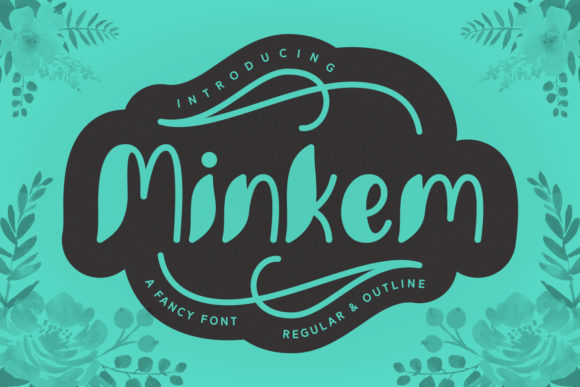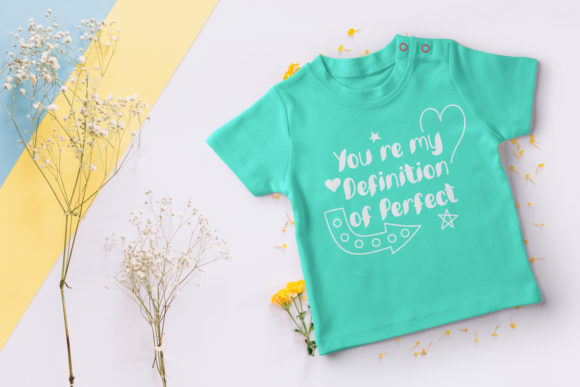
Minkem Font
About Minkem Font
Minkem is a playful font duo that comes in 2 fun variations: Regular & Outline. Perfect to add some summer vibes to your designs.